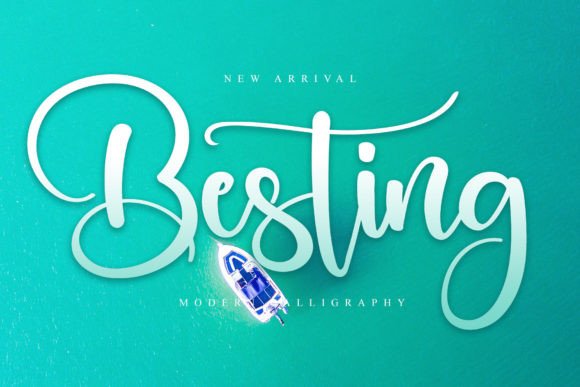
The Quest for the Perfect Font: Discovering Besting
I’ll never forget the frustration of working on a project, hours poured into designing every detail, only to hit a roadblock: finding the right font. My client wanted something stylish, yet timeless; elegant, yet approachable. I scoured font libraries, but nothing seemed quite right. That was until I stumbled upon Besting, a stylish handwritten font that has since become a staple in my design toolkit.
First Impressions: A Love at First Sight
Besting is a beautifully crafted font that exudes a contemporary atmosphere while paying homage to classic calligraphy. Its impeccable form and balanced design make it perfect for a wide range of projects, from branding and advertising to crafting and DIY tutorials.
- ✨ Elegant, handwritten aesthetic with a modern twist
- ✅ Impeccable form and balanced design
- 💫 Support for OpenType features, glyphs, and stylistic alternates
- 🎨 Versatile and adaptable to various design projects
While Besting is an exceptional font, there are a few minor considerations to keep in mind:
- ⚠️ Some users may find the font’s elegance and sophistication limiting for very casual or playful projects.
- 🤔 Depending on the intended use, users may need to adjust the font size or line spacing to achieve optimal readability.
The Story Behind Besting: Designer Inspiration
Besting was designed with the goal of creating a timeless, elegant font that would appeal to designers and crafters alike. Inspired by classic calligraphy and modern typography, the font’s creator aimed to craft a versatile and beautiful typeface that would enhance any project. While the designer’s story may be shrouded in mystery, their passion for typography and design is evident in every detail of Besting.
Q: What makes Besting suitable for both digital and print projects?
A: Besting’s clear, elegant design and support for OpenType features make it an excellent choice for both digital and print projects, from social media graphics to business cards and brochures.
Q: How does Besting compare to other script fonts on the market?
A: Besting stands out from other script fonts due to its impeccable form, balanced design, and extensive support for OpenType features, making it a versatile and elegant choice for a wide range of projects.
Q: Is Besting suitable for body text or long-form content?
A: While Besting is an elegant font, it’s best suited for headlines, titles, and short-form content. For body text or long-form content, a more traditional serif or sans-serif font may be more suitable.